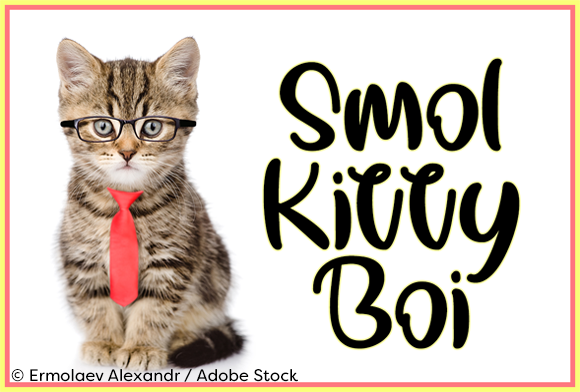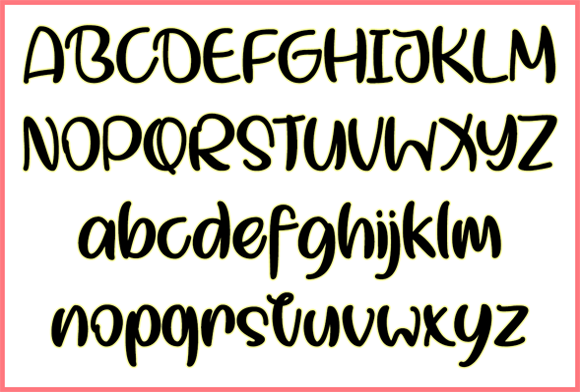
HomeScript FontsSmol Kitty Boi Font Script Fonts Smol Kitty Boi Font FacebookXPinterestWhatsApp Smol Kitty Boi Font Poster 2 About Smol Kitty Boi Font Smol Kitty Boi is a playful handwritten font that will add funky charm to your projects! DOWNLOAD ON CREATIVE FABRICAThis font is sold and delivered by Creative Fabrica. Font Canyon may earn a commission if you buy through this link. People also explored Copacetic Spring Font Amalisha Happy Family Font Christmas Cute Font Wood Wall 4 in 1 | Beer Mockup Short Story Font Sebuah Cerita Font Little Melody Font Airbeat Font 322 0 TagsSmol Kitty Boi Font Previous articleThe Amstrong FontNext articleSuntre Font LEAVE A REPLY Cancel reply Comment: Please enter your comment! Name:* Please enter your name here Email:* You have entered an incorrect email address! Please enter your email address here Website: Save my name, email, and website in this browser for the next time I comment. Personal Use Free The Quick Personal Use Free Read more about this font Dolce Vita Personal Use Free Read more about this font Ayam Bakar Personal Use Free Read more about this font Arabella Script Personal Use Free Read more about this font BLOG Where to Buy American Fonts Online in 2024 Where to Buy American Fonts Online: The Ultimate Guide for 2024 Looking for the perfect American font to elevate your design projects? You're in the... Free vs Paid Fonts: Why Investing in Premium Fonts Is Worth It Transform Your Website: Elevate Your Typography with 7 Best Web Font Generators The 10 Best Handwriting Fonts to Add Personality to Your Designs